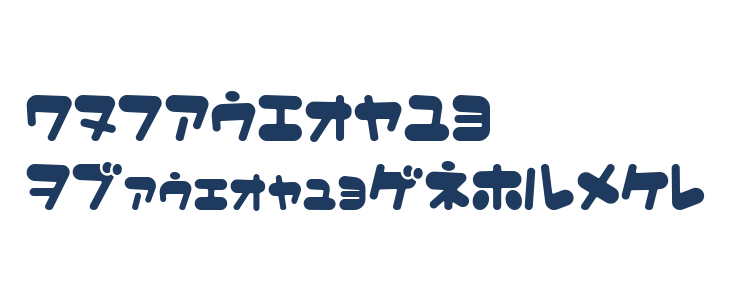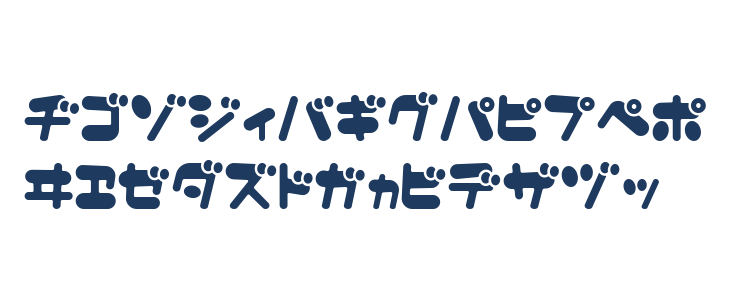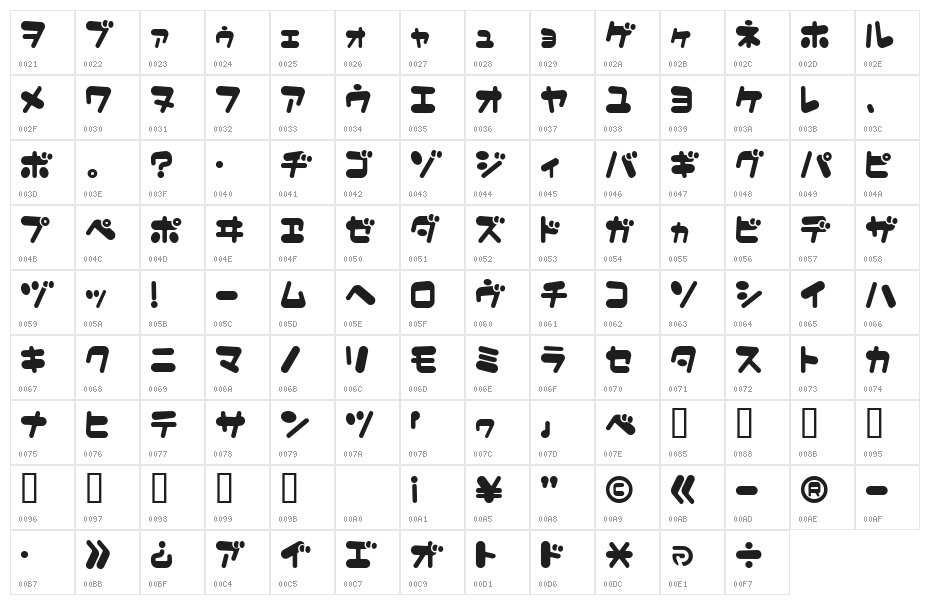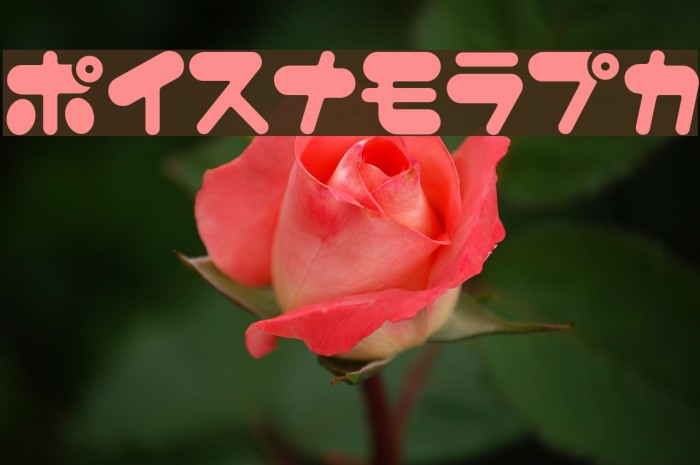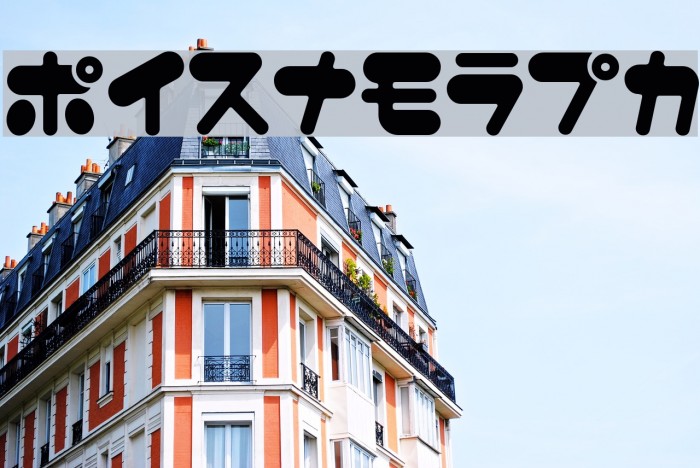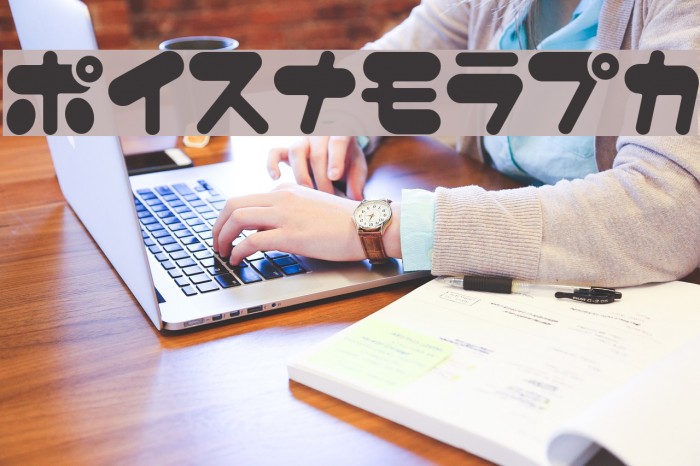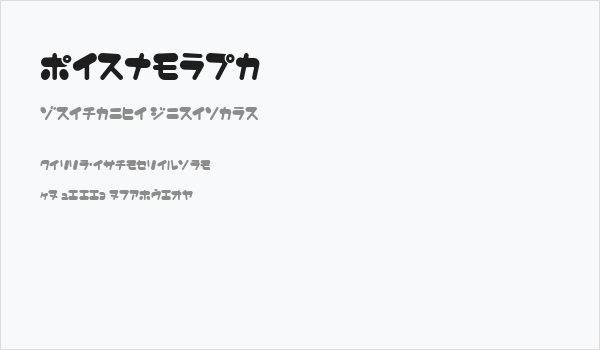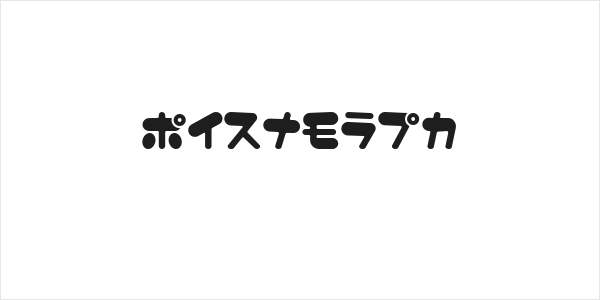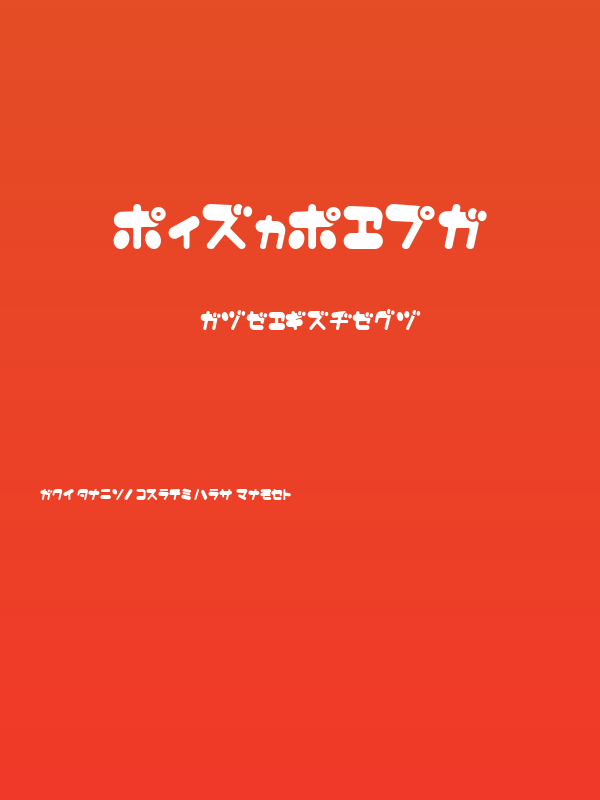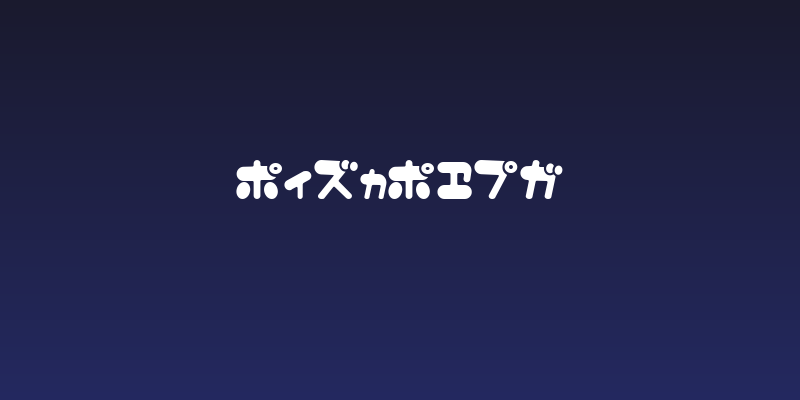
MerumoKt Font
MerumoKt Description
This font features bold, rounded characters with a playful and modern aesthetic. The strokes are thick and uniform, giving the font a strong presence. The characters are slightly condensed, which adds to the compact and cohesive look. The overall style is decorative, making it suitable for eye-catching designs. The font's unique appearance makes it ideal for creative projects that require a distinctive and engaging typeface.
Overall StyleModern, Decorative
Proposed ProjectsIdeal for posters, children's books, branding, and creative digital content.